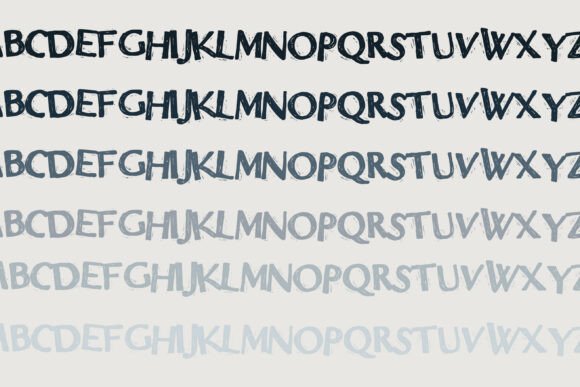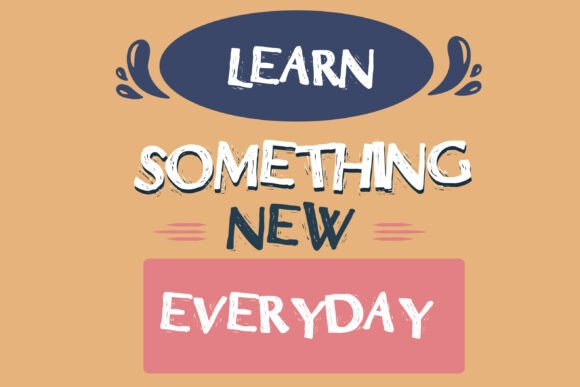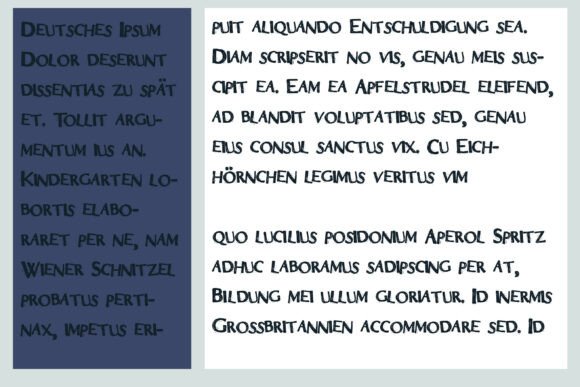
Introduction to Fragmento Font
Reveal the layers of your narrative with Fragmento, a rustic display sans that captures a “weathered-and-wonderful” soul.
This font features sturdy, hand-cut letterforms uniquely characterized by rhythmic, distressed “ink-stamp” textures and irregular edges that bridge the gap between traditional woodblock printing and modern artisanal branding With its heavy structural weight and soulful personality, Fragmento is the premier choice for independent craft brewery identities, boutique cultural market logos, handmade textile packaging, and high-impact “homespun-and-heartfelt” social media headers.
Key Features of Fragmento Font
Why Choose Fragmento Font?